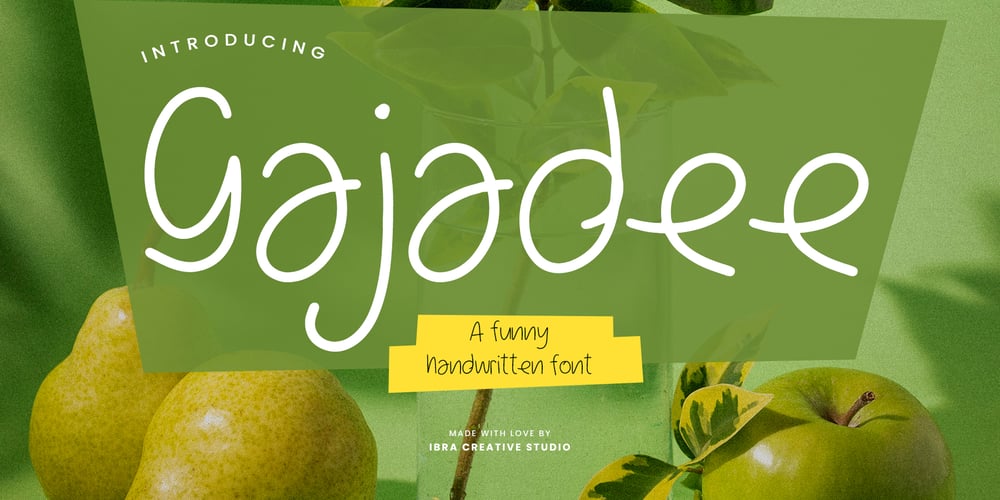
Gajadee Font Family was designed by Roisatul Azizah and published by IbraCreative. Gajadee contains 1 styles and family package options. Gajadee – A Funny Handwritten TypefaceGajadee is a delightful and whimsical handwritten font that exudes a playful charm. Its distinctive characters are crafted with a carefree flair, featuring exaggerated loops, bouncy curves, and a touch of irregularity, giving the font a distinct sense of humor. The hand-drawn quality of Gajadee adds a personal touch to any project, making it perfect for conveying a lighthearted and entertaining vibe. Whether used in invitations, greeting cards, or other creative endeavors, Gajadee injects a sense of fun and joviality, making it a standout choice for those seeking a funny and engaging handwritten typeface.Gajadee is perfect for branding projects, logo, wedding designs, social media posts, advertisements, product packaging, product designs, label, photography, watermark, invitation, stationery, game, fashion and any projects.Fonts include multilingual support for; Afrikaans, Albanian, Czech, Danish, Dutch, English, Estonian, Finnish, French, German, Hungarian, Italian, Latvian, Lithuanian, Norwegian, Polish, Portuguese, Slovak, Slovenian, Spanish, Swedish.